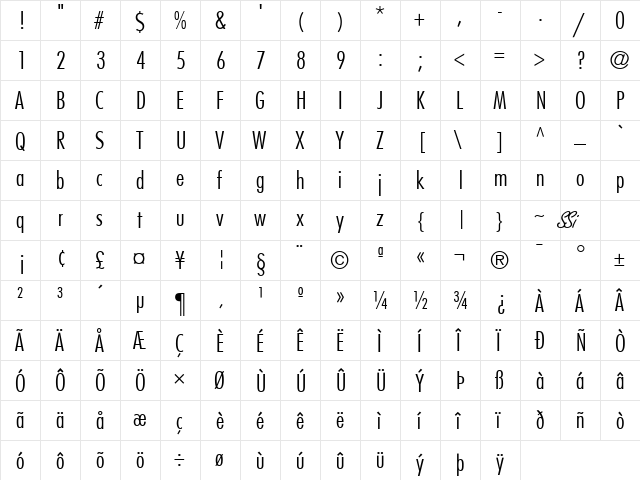
Kudos Light Condensed SSi Light Condensed
Design Context for Kudos Light Condensed SSi Typeface
Kudos Light Condensed SSi offers clean, dependable letterforms without strong stylistic allegiance, making it a practical choice for designers who need flexibility. The delicate stroke weight brings airiness and refinement to layouts. Its narrow stance lets it pack a punch even in space-constrained designs.
Pro Tip: Use Kudos Light Condensed SSi in both headline and body roles to test its range before committing to a single application.